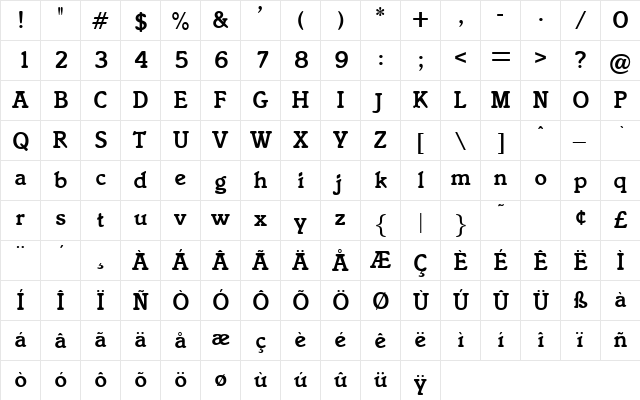
Issabella Regular
Design Context for Issabella Typeface
Issabella offers clean, dependable letterforms without strong stylistic allegiance, making it a practical choice for designers who need flexibility.
Pro Tip: Pair Issabella with a font of contrasting weight or personality to build a more expressive typographic hierarchy.